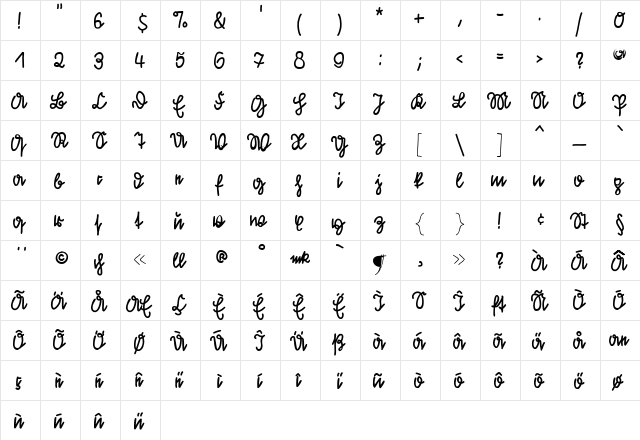
KleinsFirstScript Regular
Design Context for KleinsFirstScript Typeface
KleinsFirstScript brings a calligraphic fluidity to the page — its connecting strokes and expressive curves give it an unmistakably human quality.
Font Pairing: Combine KleinsFirstScript with a simple geometric sans for maximum contrast — the tension between flowing curves and clean structure is a classic typographic pairing.
Pro Tip: Use KleinsFirstScript for short runs of text — names, titles, or taglines. Extended body copy in script faces tires the eye quickly.